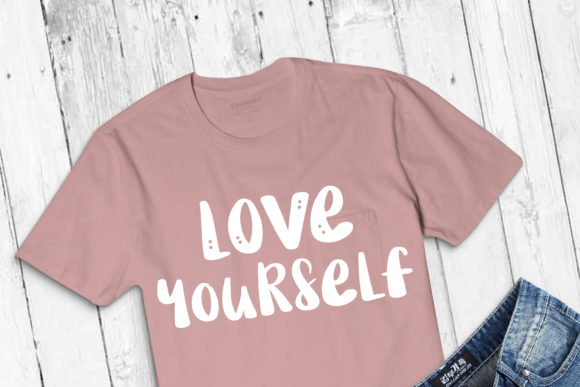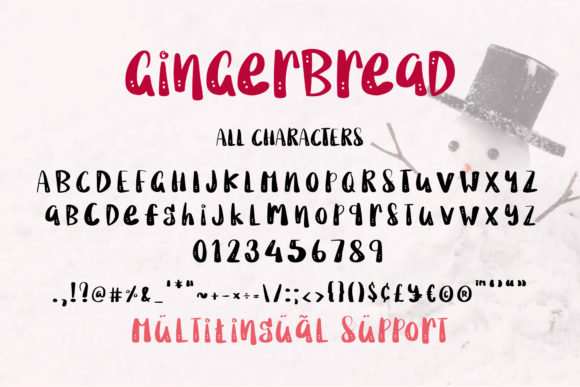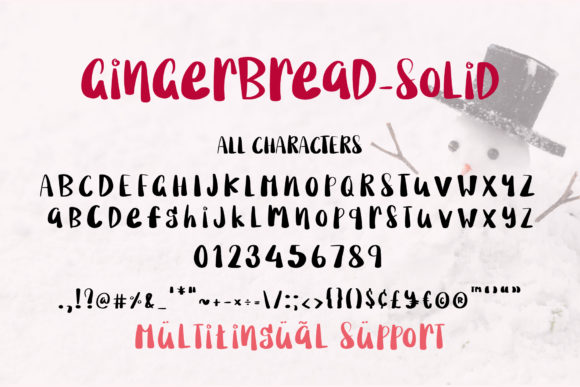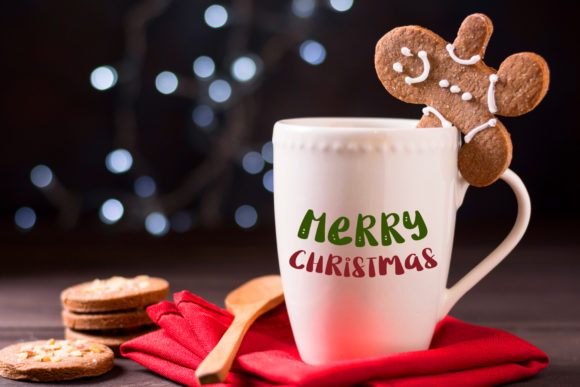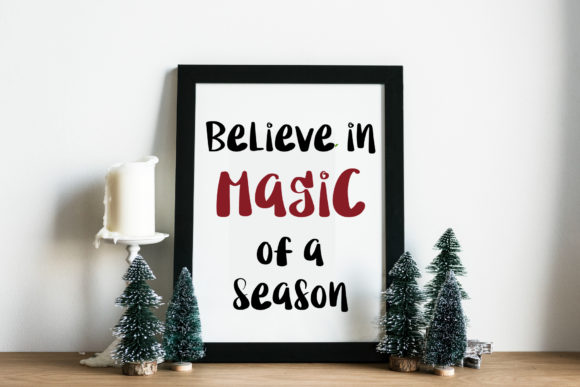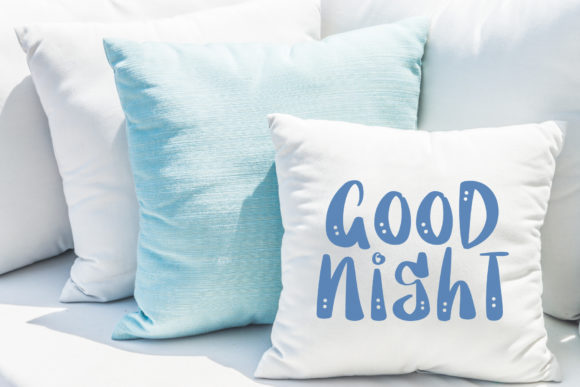
The Sweet Spot: Discovering the Charm of the Gingerbread Font
I’ll never forget the time I was working on a festive holiday project for a client, and I just couldn’t seem to find the perfect font to match the playful, whimsical vibe they were going for. The project was a series of posters and social media graphics for a local bakery, and I wanted something that would evoke the warmth and coziness of freshly baked gingerbread cookies. That’s when I stumbled upon the Gingerbread font, and it was love at first sight! ✨
A Font that’s the Perfect Mix of Playful and Quirky
Gingerbread is a friendly display font that’s perfect for all your logos, branding, posters, and crafty DIY projects. Its playful and slightly quirky personality makes it an excellent choice for designers, crafters, and creative hobbyists looking to add a touch of whimsy to their work.
- ✨ Unique and eye-catching letterforms that are sure to stand out
- ✅ Highly legible, even at smaller sizes
- 🎉 Extensive OpenType features, including glyphs and stylistic alternates
- 👍 Great for titles, headings, and short paragraphs of text
- 🤔 May not be the best choice for body text or longer paragraphs, as it can be a bit too playful
- ⚠️ Some users may find the font a bit too bold or overpowering for certain design applications
The Story Behind the Font: Designer Inspiration
The Gingerbread font was inspired by the classic holiday treat, with its playful and whimsical letterforms evoking the warmth and coziness of freshly baked cookies. The designer wanted to create a font that would capture the magic of the holiday season, while also being versatile enough for a wide range of design applications.
Q: What type of projects is the Gingerbread font best suited for?
A: The Gingerbread font is perfect for logos, branding, posters, and crafty DIY projects that need a playful and whimsical touch.
Q: Is the Gingerbread font available in different weights or styles?
A: Yes, the Gingerbread font comes in a range of weights and styles, including bold, regular, and italic.